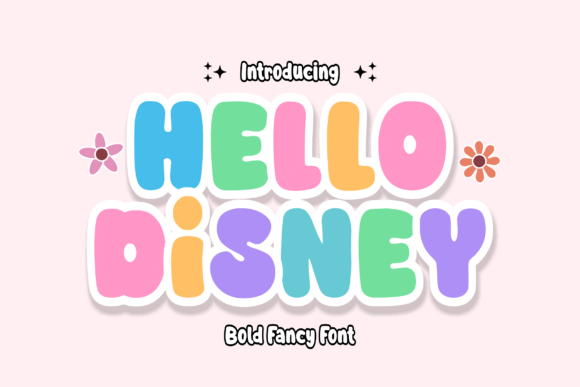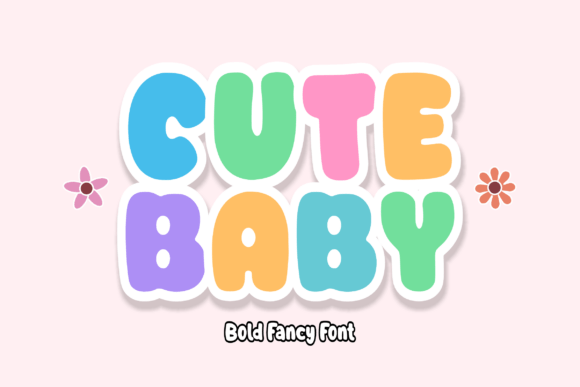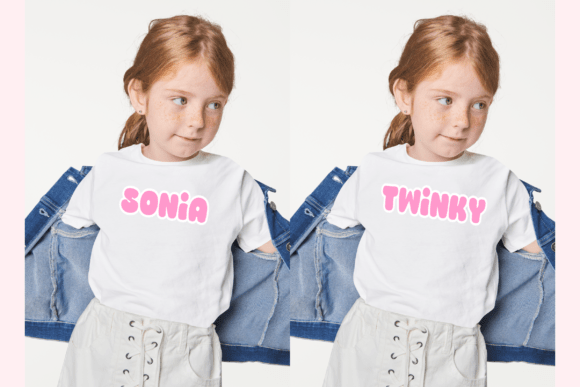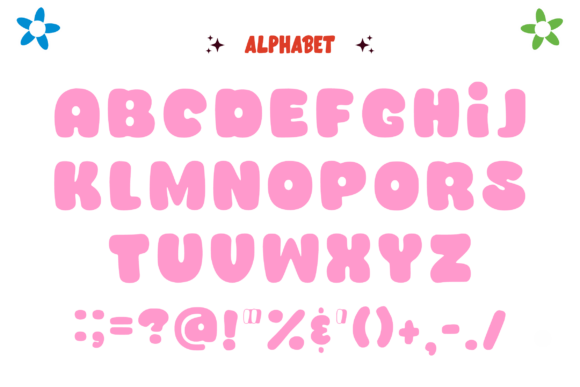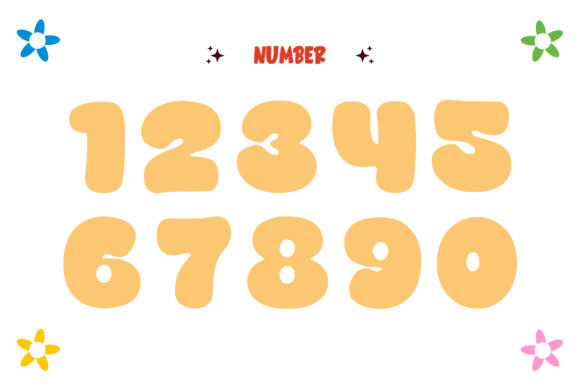
Hello Disney Font
Unveiling “Hello Disney,” an enchanting bubble font designed specifically with children in mind. Each character pops with a delightful modern aesthetic that’s easy on the eyes and radiates an irresistible charm. The versatility of this font is its superpower; seamlessly enhancing sublimation design for t-shirts, mugs, tote bags, and even breathing life into animations or comic titles. Dip your paintbrush into your imagination and let “Hello Disney” be your canvas!